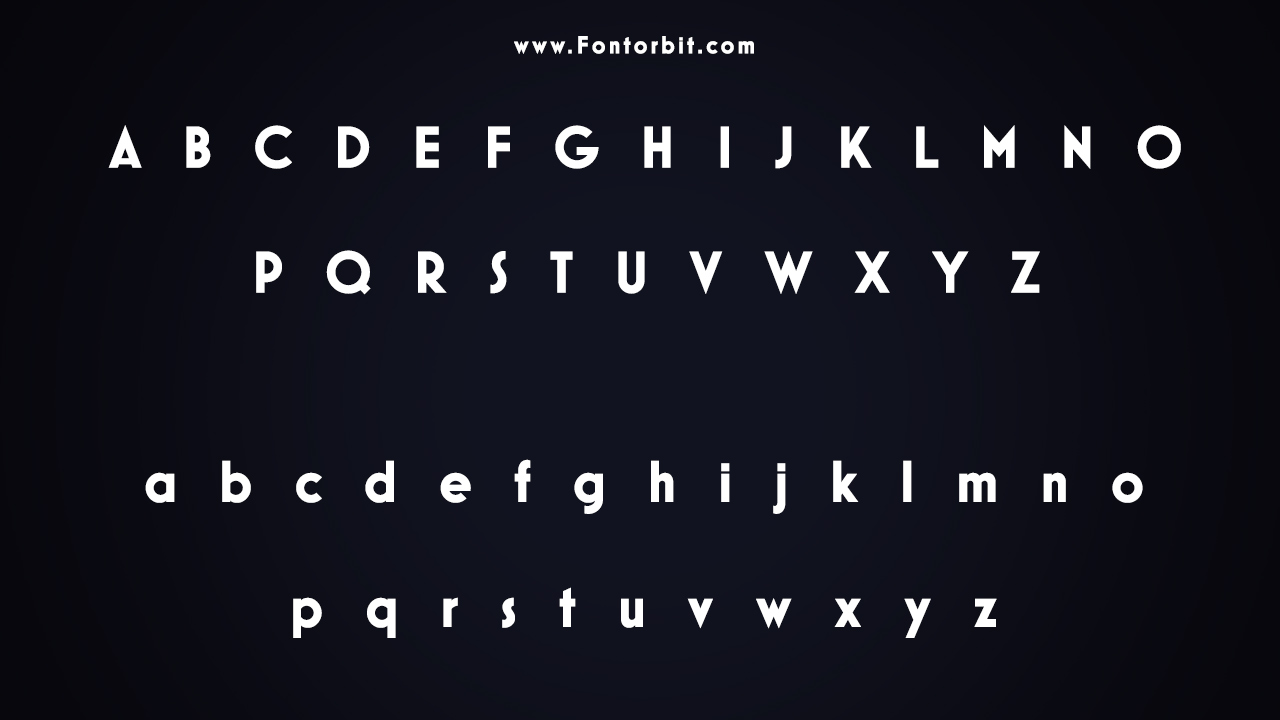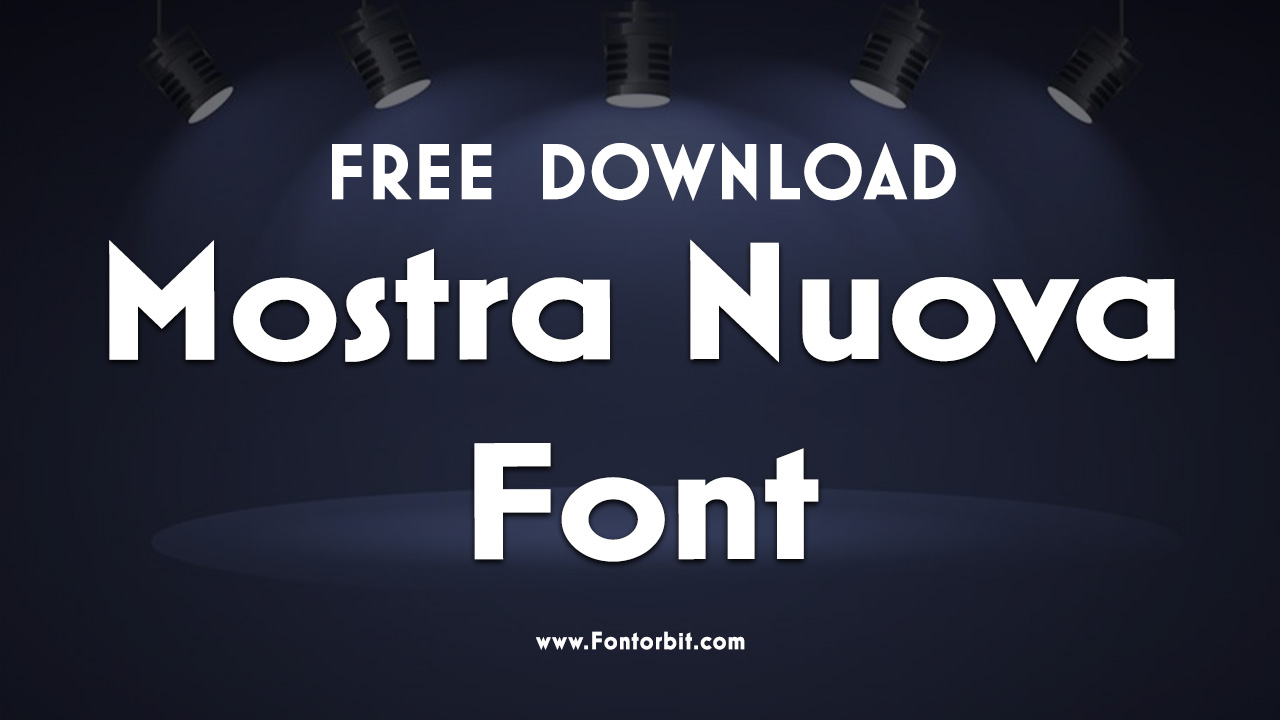
Mostra Nuova Font is a bold, geometric sans-serif typeface designed by Mark Simonson and first released in 2001. It draws inspiration from the Italian Art Deco styles of the 1920s and 1930s and offers a modern twist on retro typography. Published by Mark Simonson Studio.
Mostra Nuova Font Family Includes
Mostra Nuova offers a range of styles, ensuring versatility for various design needs. The font family includes both regular and italic styles, as well as a broad range of weights. It is particularly well-suited for retro designs that need a fresh, modern appeal.
The family includes:
- Mostra Nuova Regular
- Mostra Nuova Black
- Mostra Nuova Thin
- Mostra Nuova Light
- Mostra Nuova Heavy
- Mostra Nuova Bold
Notable Uses Of Mostra Nuova
Mostra Nuova has been widely used in various design contexts, particularly where a retro-modern aesthetic is desired. It has been featured in:
- Movie posters
- Branding for fashion and luxury goods
- Packaging design
- Magazine headlines
- Event promotions
Mostra Nuova is best used for display purposes, particularly in large headlines and short bursts of text where its unique Art Deco-inspired forms can stand out. It’s great for:
- Posters and banners
- Logos and branding
- Editorial design for magazines
- Website headers
Mostra Nuova is a perfect blend of historical Art Deco design and modern sans-serif functionality. Its clean geometric forms and bold presence make it an excellent choice for creative projects, especially when looking to achieve a retro aesthetic with a contemporary twist.
2.Is Mostra Nuova Good For Body Text?
No, it is best suited for headlines and display use due to its bold, geometric shapes.
3.Can I Use Mostra Nuova For Logos?
Yes, it’s a popular choice for logos due to its strong visual presence.